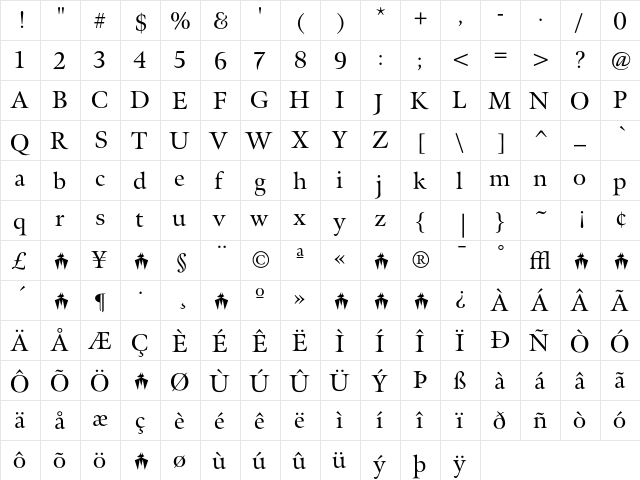
Meno Roman
Design Context for Meno Typeface
Meno takes a measured approach to typography — its balanced proportions and neutral character make it a reliable workhorse for both digital and print work.
Pro Tip: Pair Meno with a font of contrasting weight or personality to build a more expressive typographic hierarchy.